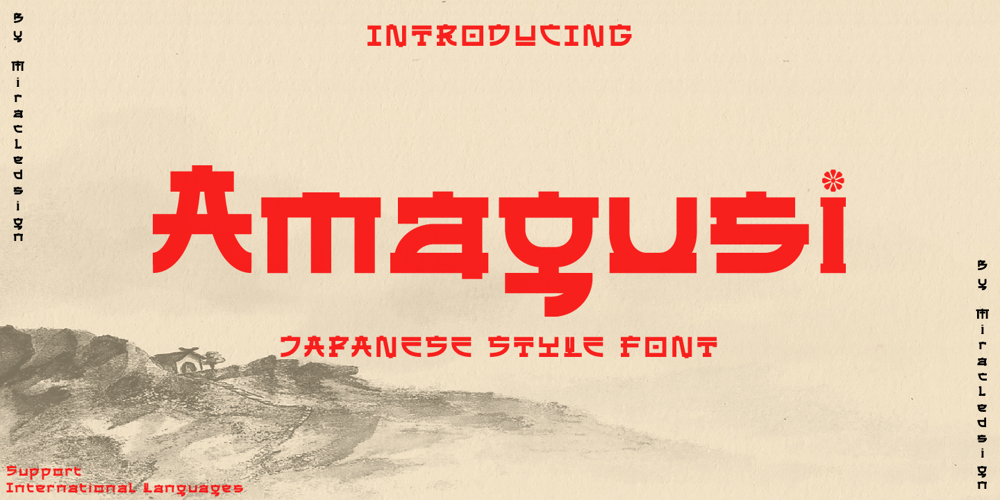
Amagusi Font Family was designed by Anton Septiawan and published by Miracledsign. Amagusi contains 1 styles and family package options. Amagusi is a font that is inspired by Japanese culture with all its uniqueness and beauty that makes the bamboo curtain country very loved by many people, as well as in the art of writing kanji which has its own aesthetic value.The amagasi font is formed and made by combining the contours and anatomy of kanji letters so that it has a very beautiful value when used in a sentence and is very attractive to readers who see it and of course it will make your product more elegant and appreciated by everyone who sees it.